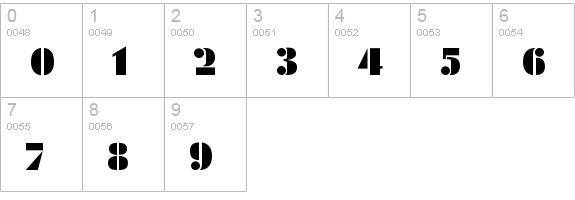
ArmyBlackPlain font is a striking and bold typeface that exudes strength and authority. Its clean lines and sharp edges make it perfect for military-themed designs or projects that require a commanding presence. This font stands out with its unique style and versatility, making it a great choice for headlines, posters, and branding materials. What's even better is that ArmyBlackPlain font is available for free download at FontsMarket.com. So whether you're working on a project that calls for a no-nonsense aesthetic or simply want to add a touch of power to your designs, this font is a fantastic choice. Download it today and add a touch of boldness to your next project!